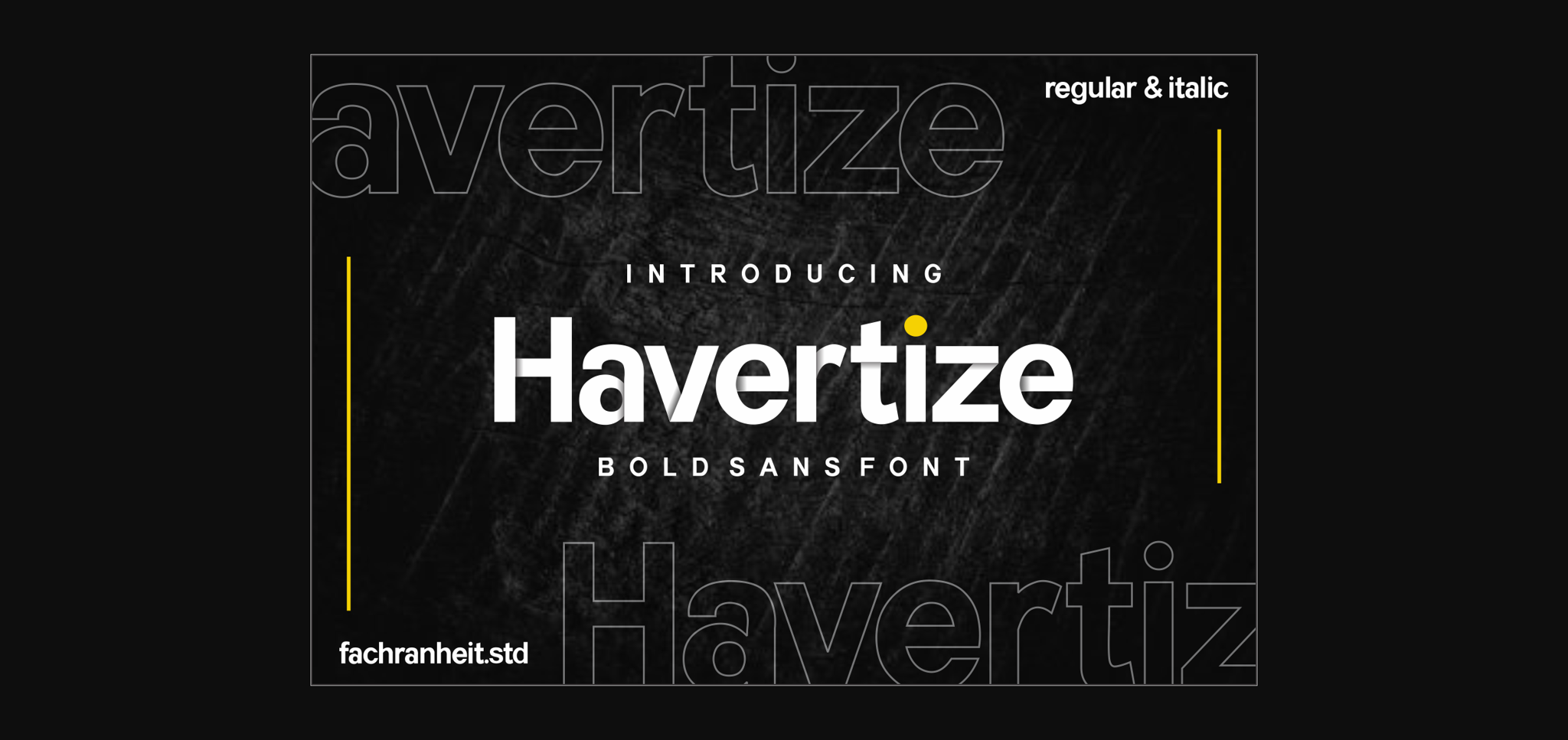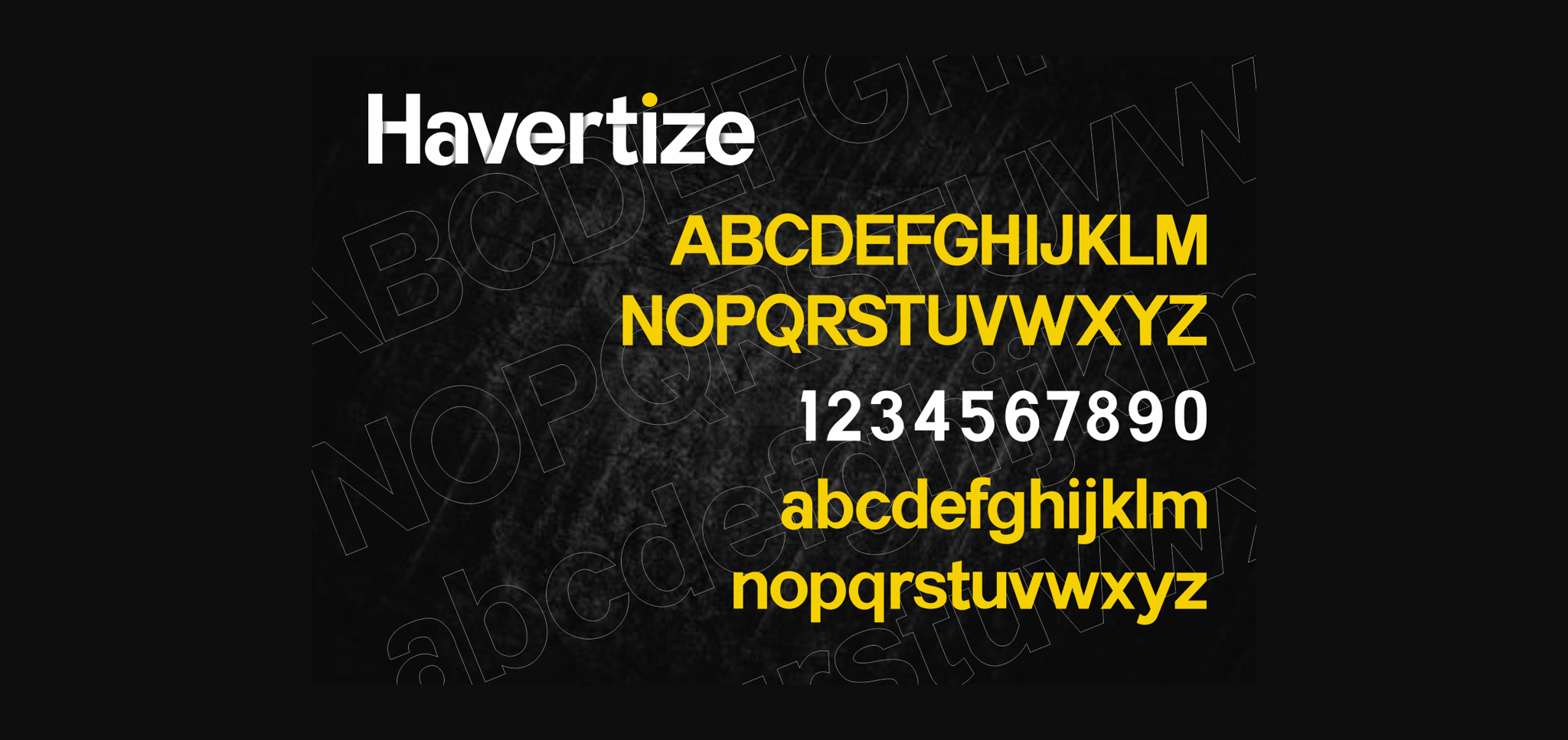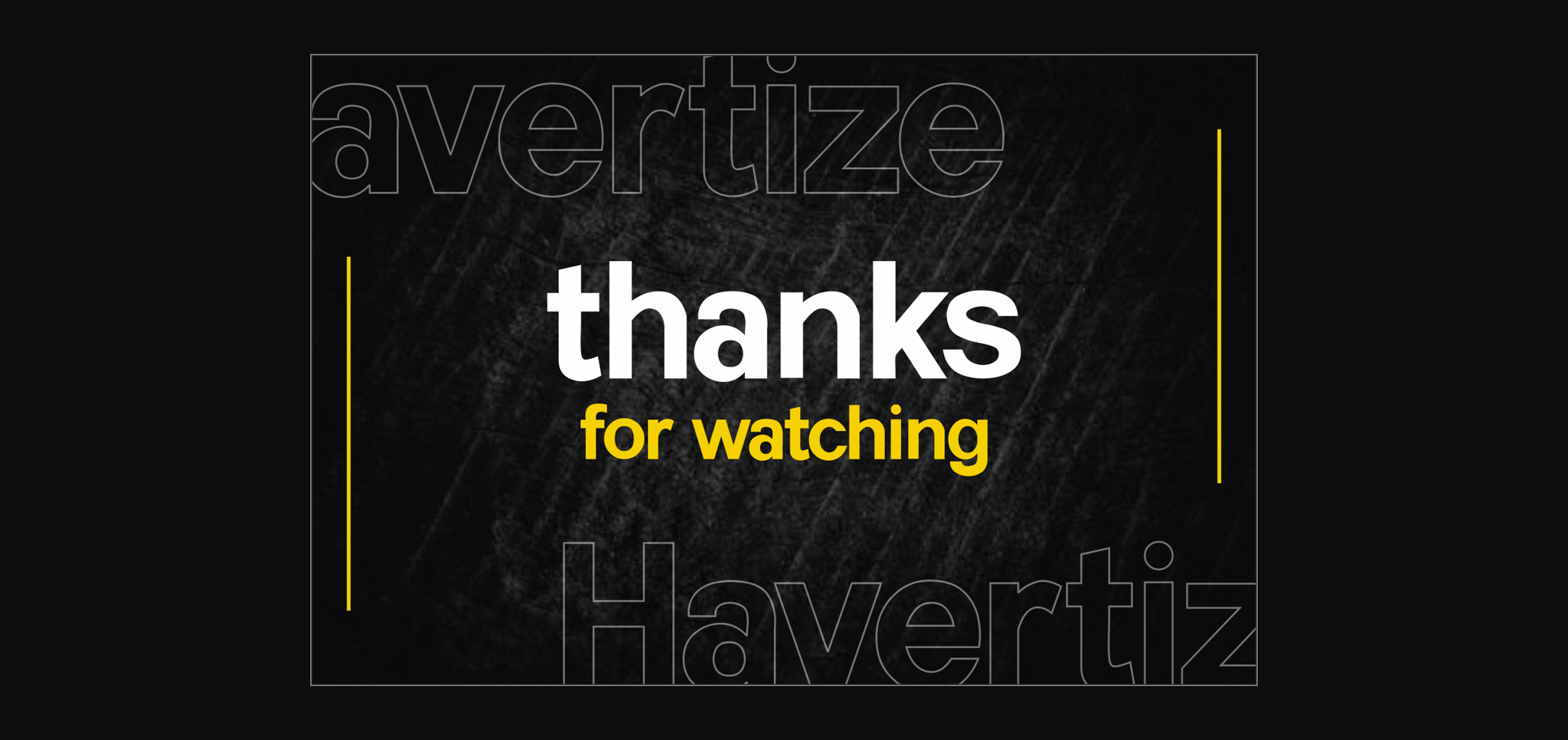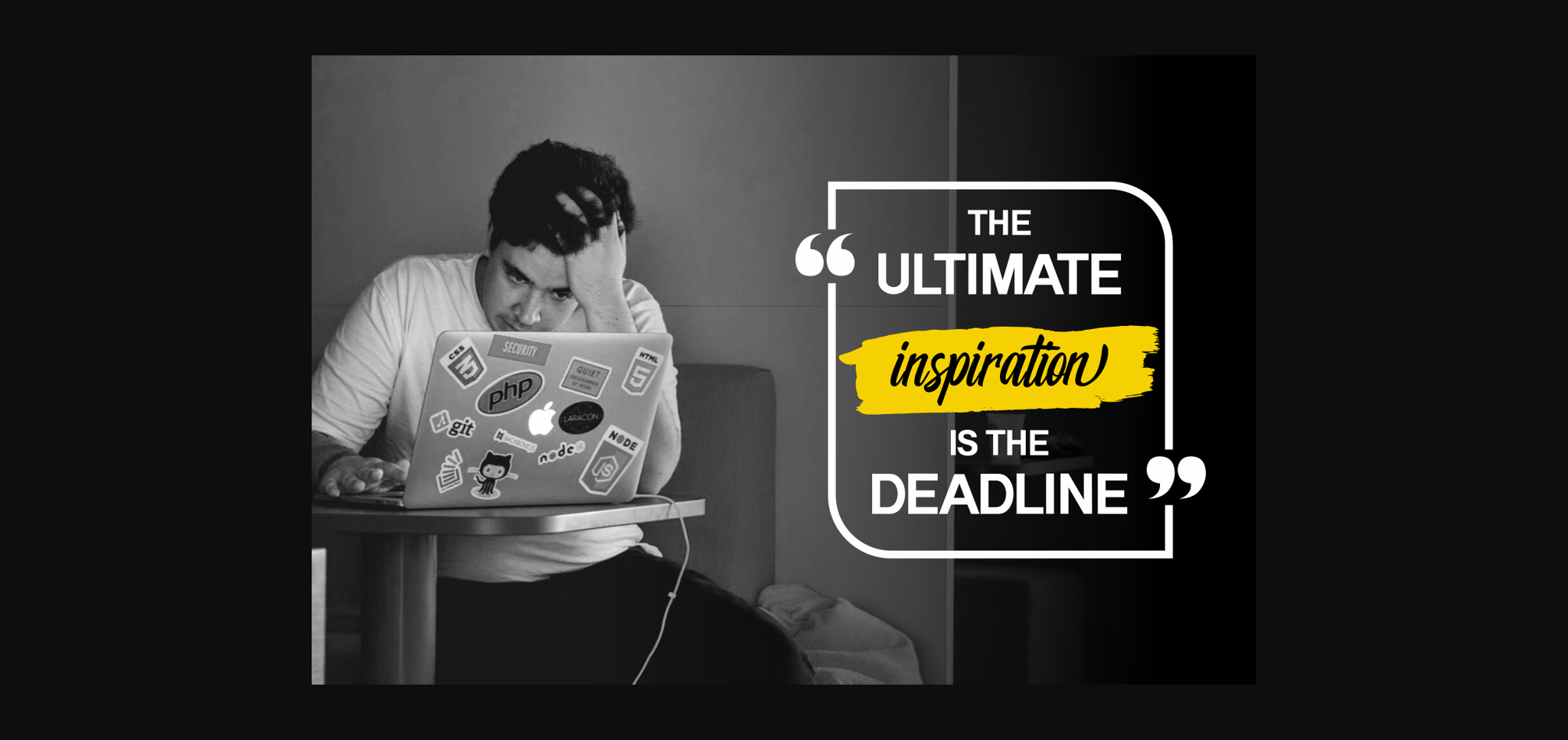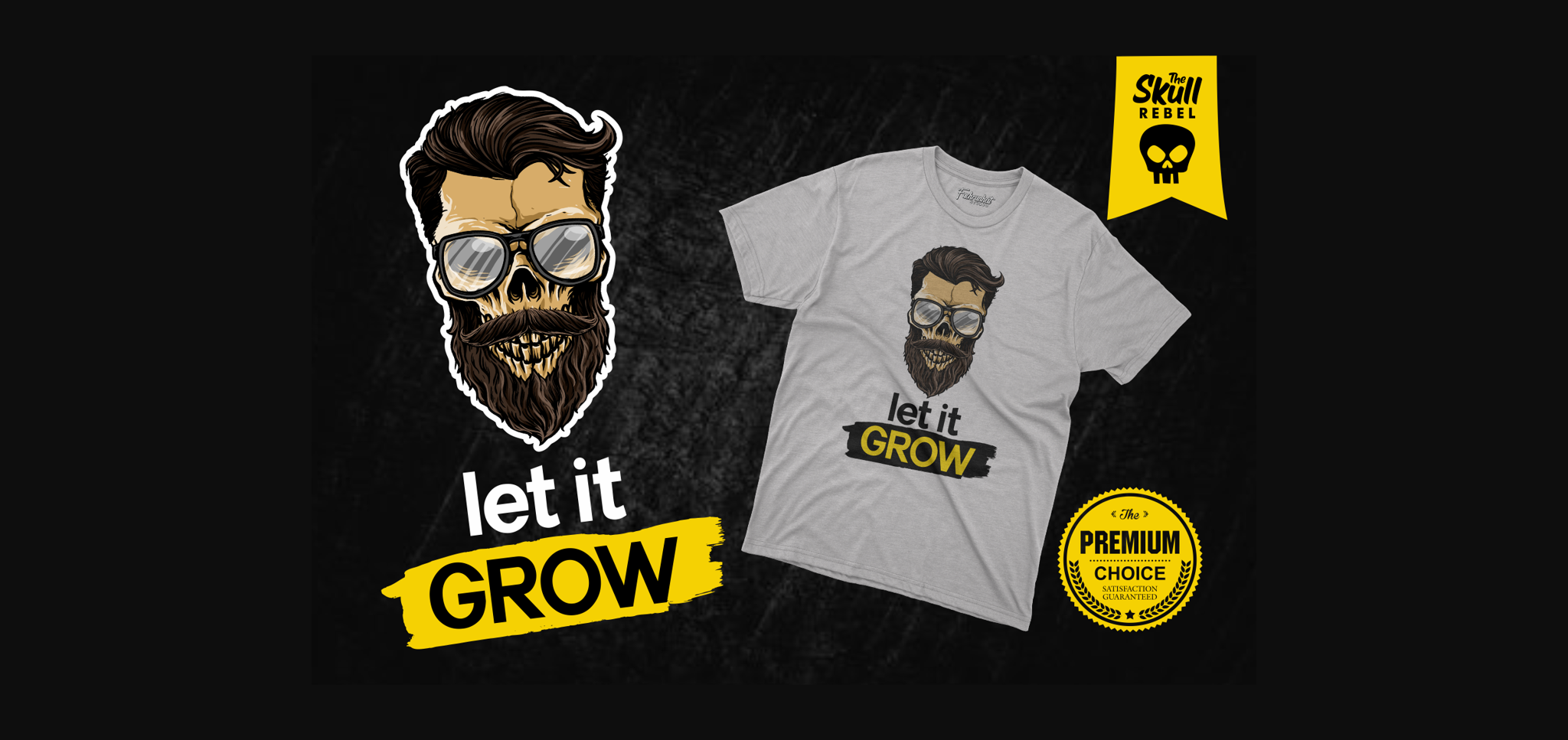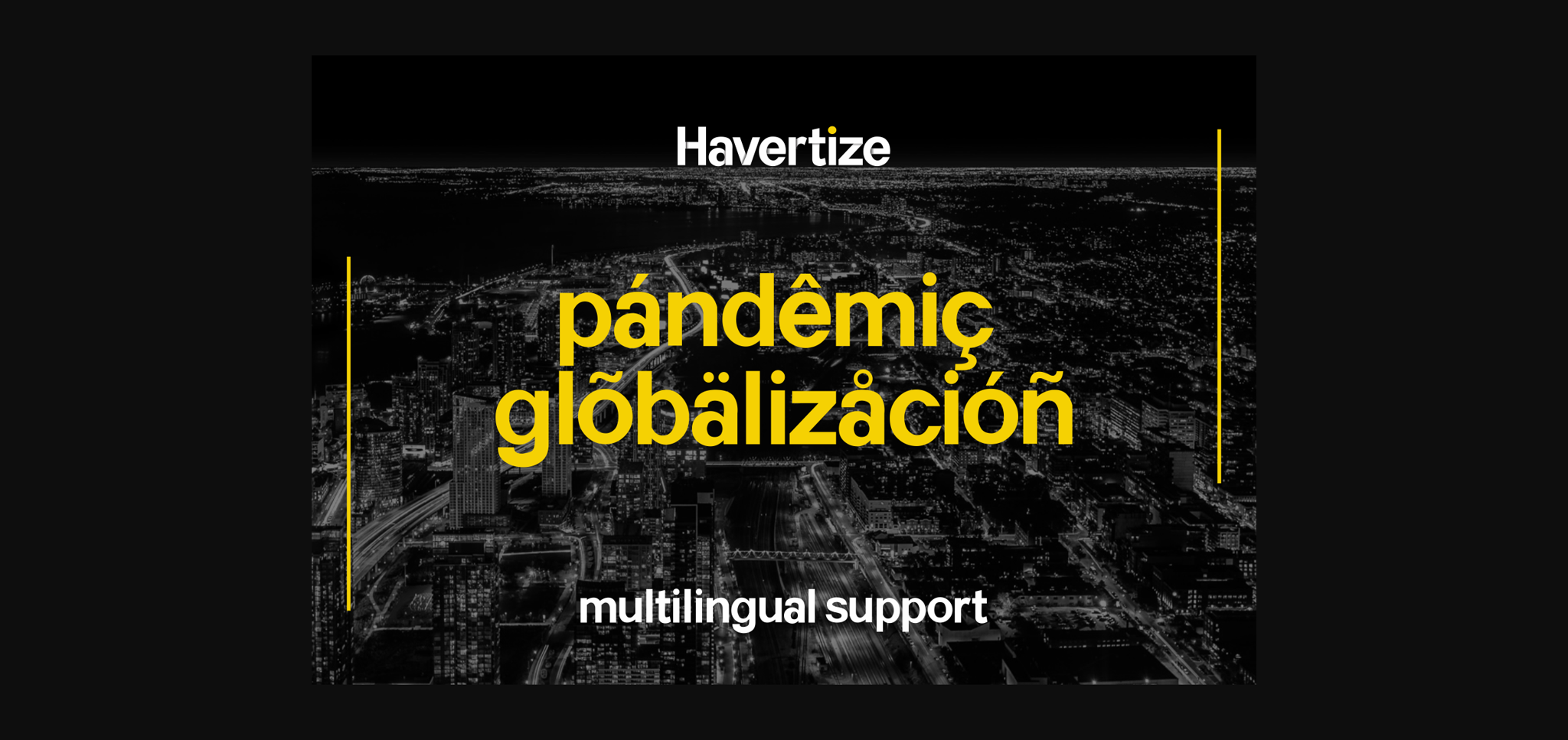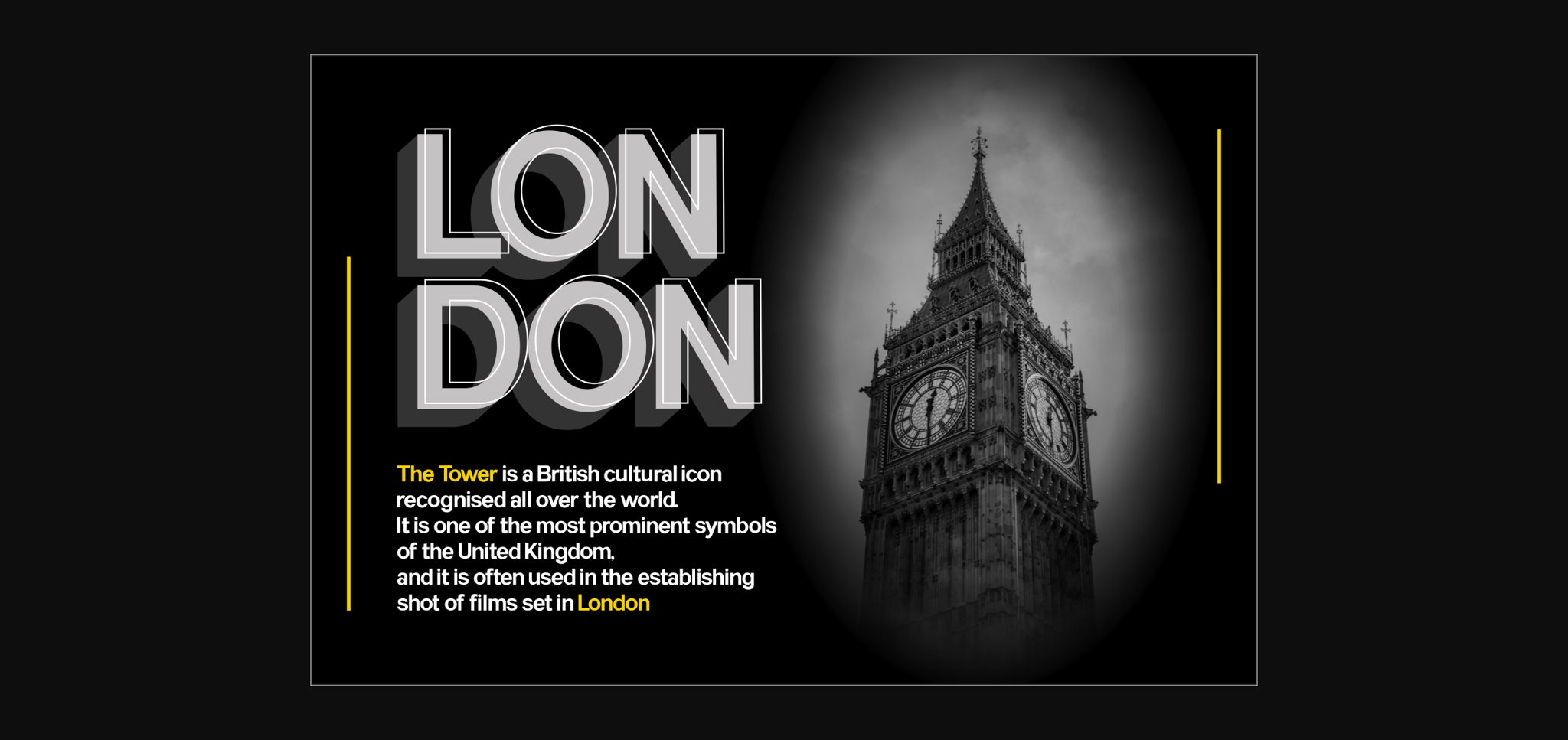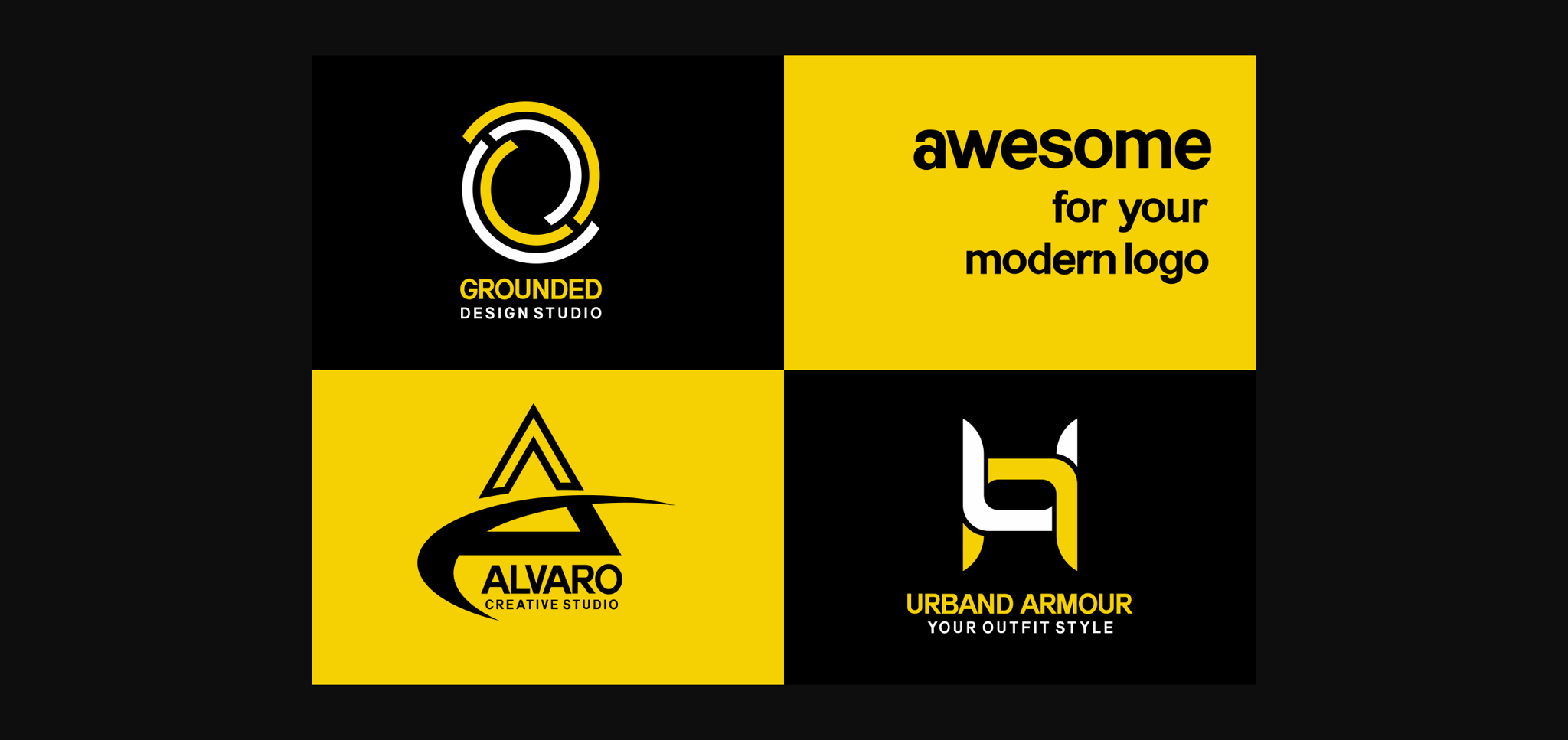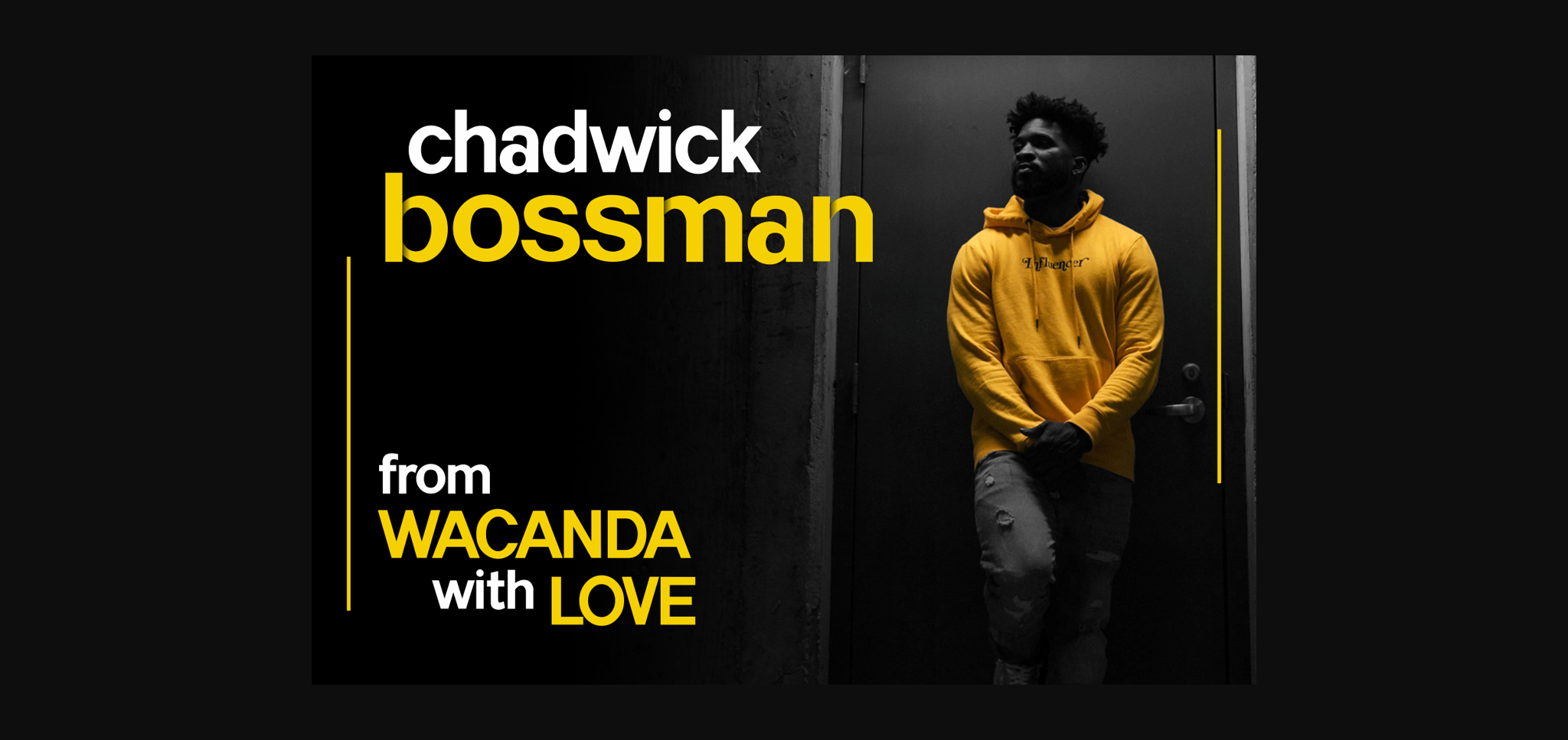
Havertize Font
About Havertize Font
Havertize presents itself as a bold and straightforward sans serif font, characterized by its simplicity and clarity. With its versatile design, Havertize seamlessly integrates into a wide range of projects, effortlessly enhancing their visual impact and ensuring they stand out with ease.
The beauty of Havertize lies in its adaptability. Whether you’re working on a sleek logo, crafting eye-catching headlines, or designing minimalist branding materials, Havertize’s bold letterforms and clean lines make it the perfect choice. Its timeless aesthetic serves as a canvas for creativity, allowing your designs to shine without distraction.
One of Havertize’s standout features is its ability to maintain readability and clarity across various platforms and mediums. Whether viewed on screens or in print, Havertize’s well-defined characters ensure optimal legibility, enhancing the user experience and engagement.
Furthermore, Havertize’s bold appearance adds a sense of confidence and authority to any design composition. Whether used for headlines, body text, or graphic elements, Havertize exudes strength and modernity, commanding attention and leaving a lasting impression on your audience.
In summary, Havertize is more than just a font; it’s a versatile design tool that empowers you to create projects that stand out with effortless style and clarity. With its bold and simple lettered sans serif design, Havertize adds a touch of elegance to any design endeavor. Embrace the versatility of Havertize and watch as your projects come to life with timeless beauty and sophistication.With its bold letterforms and clean lines, Havertize ensures readability and clarity across platforms. Its adaptability makes it suitable for logos, headlines, branding, and more. Embrace Havertize to infuse your projects with a sense of modernity and sophistication, ensuring they stand out with effortless style.